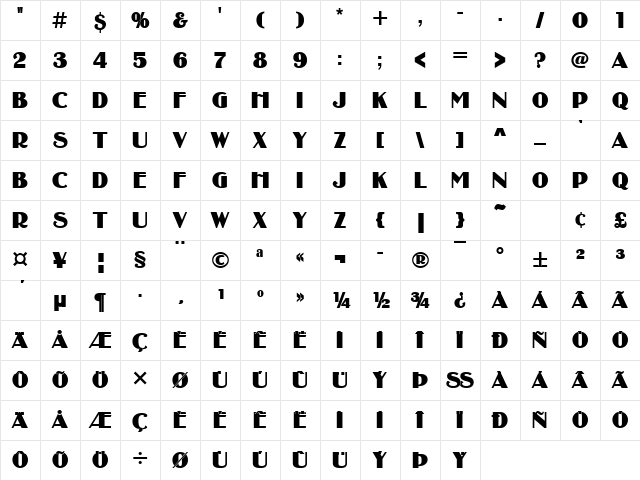
Complete Binner Becker Poster Regular glyph index. Displaying only characters natively supported by Binner Becker Poster Regular font.
Binner Becker Poster is a composed and adaptable typeface that performs quietly and consistently across a wide range of design contexts.